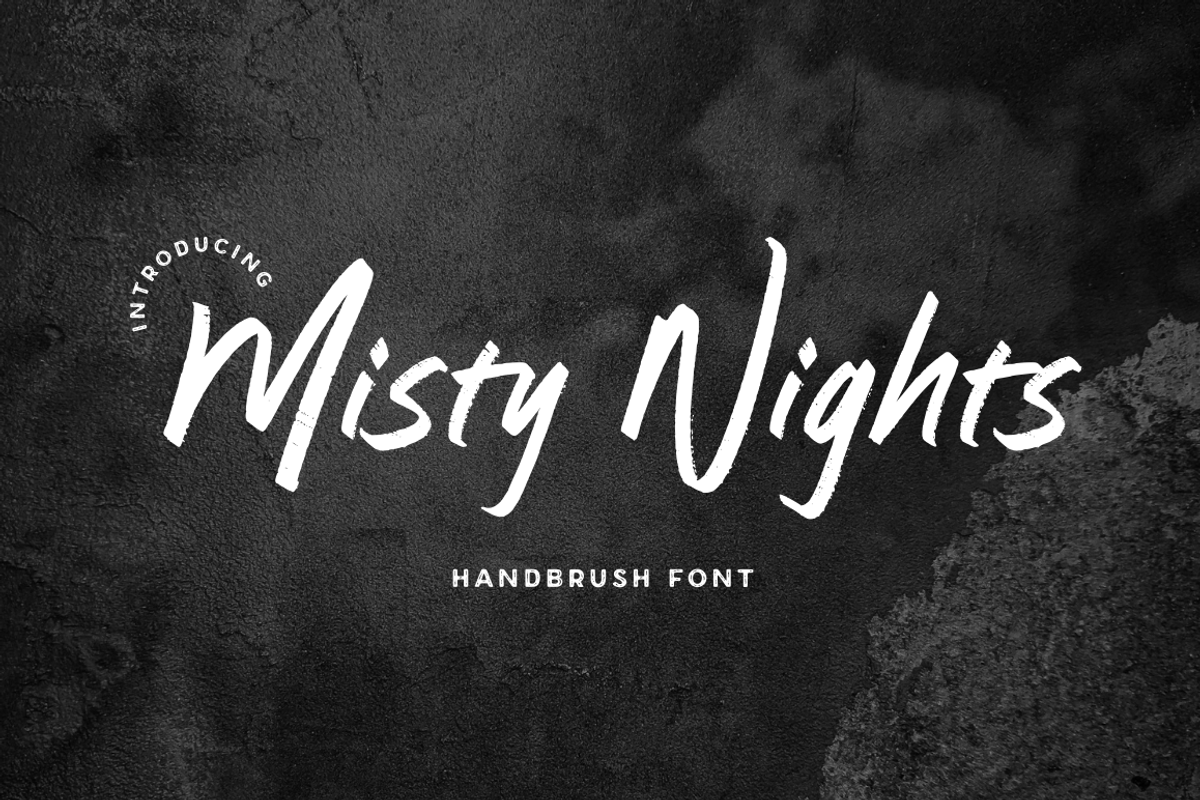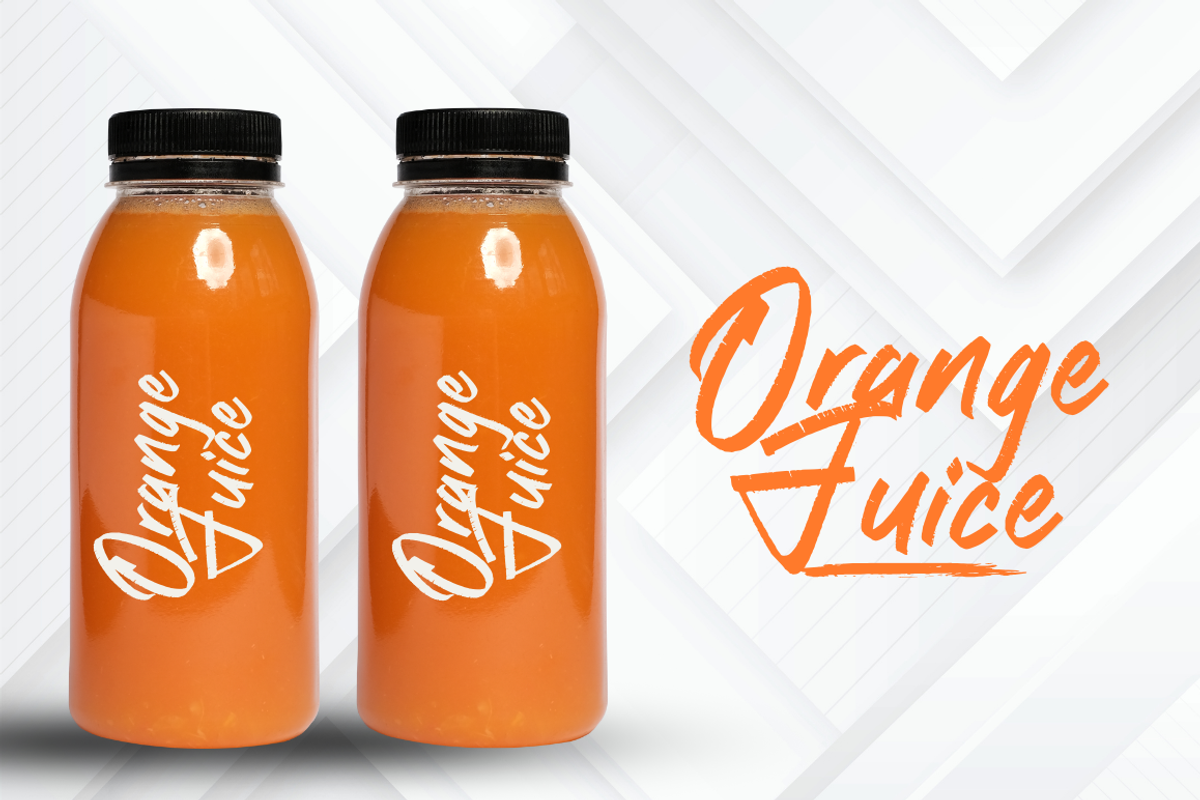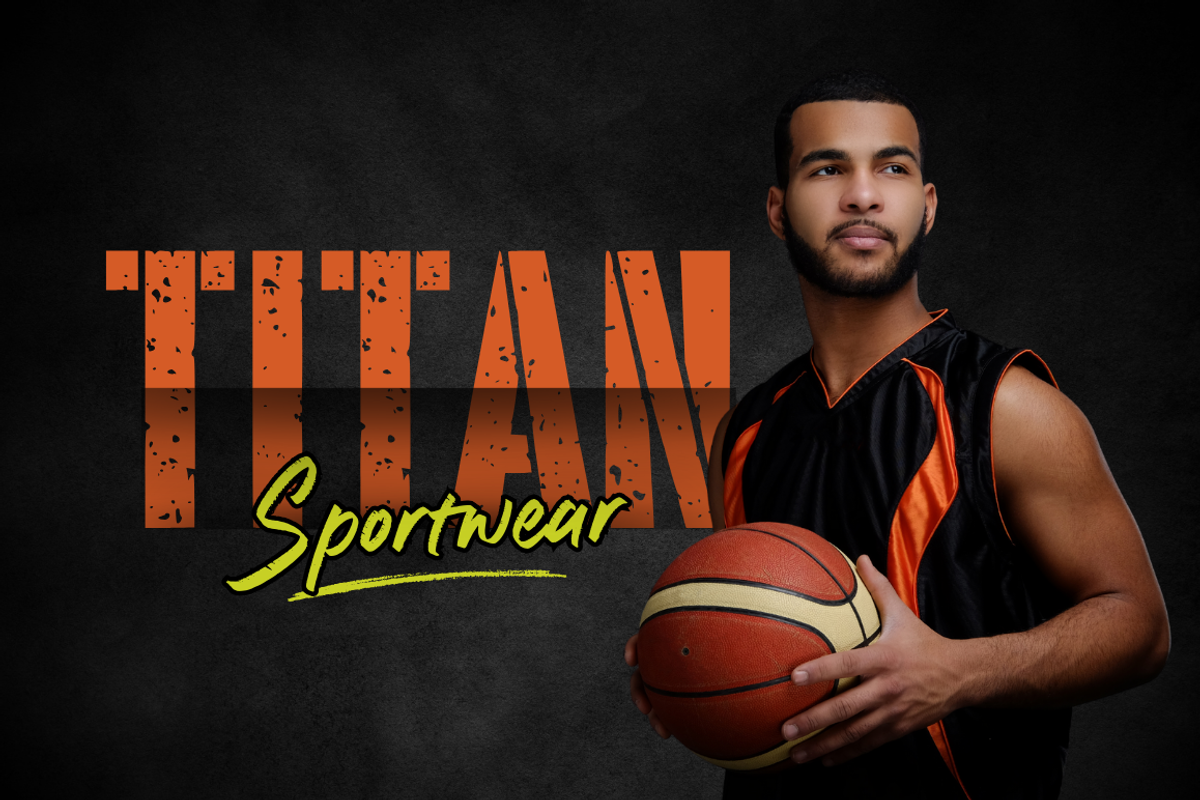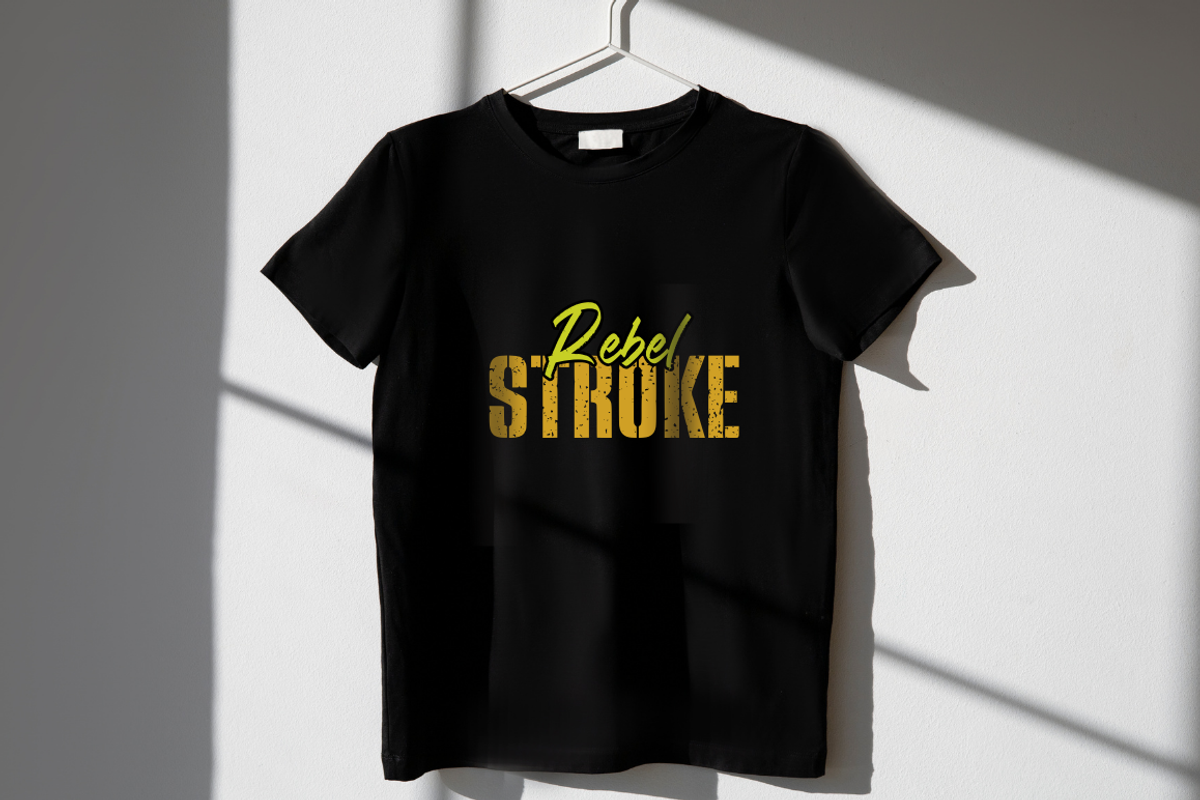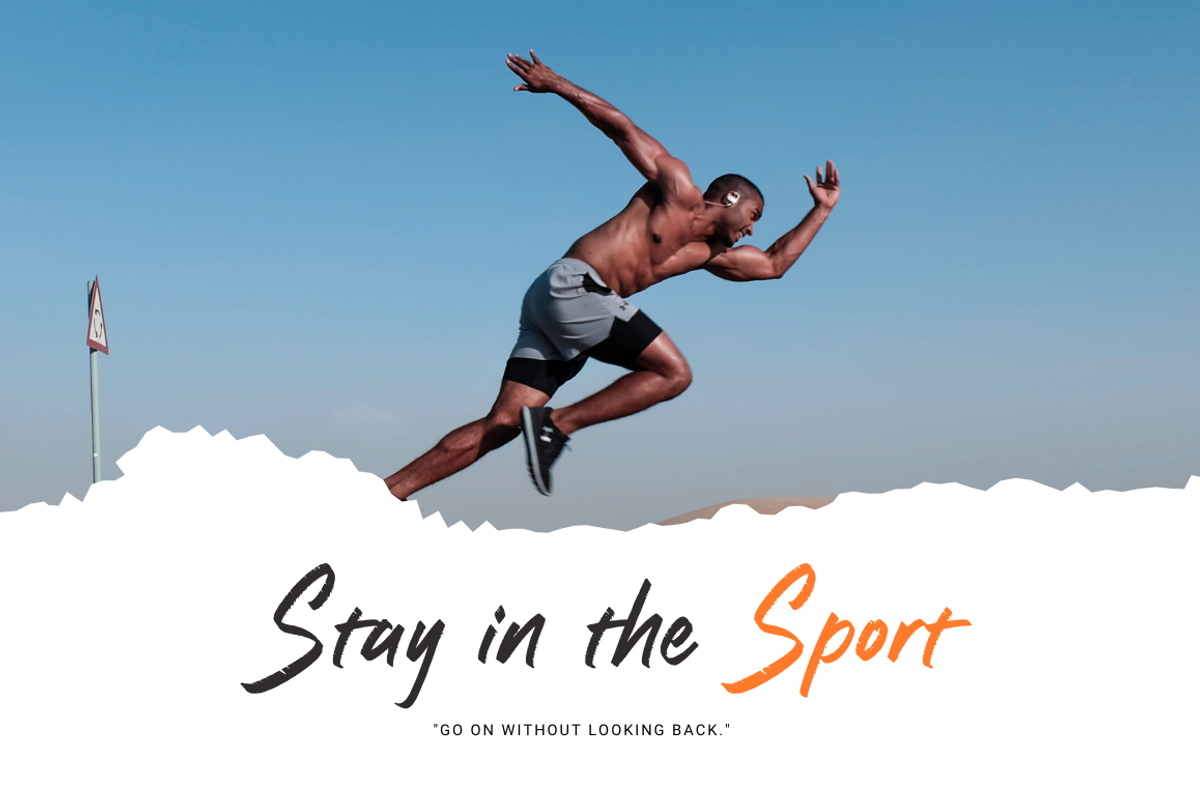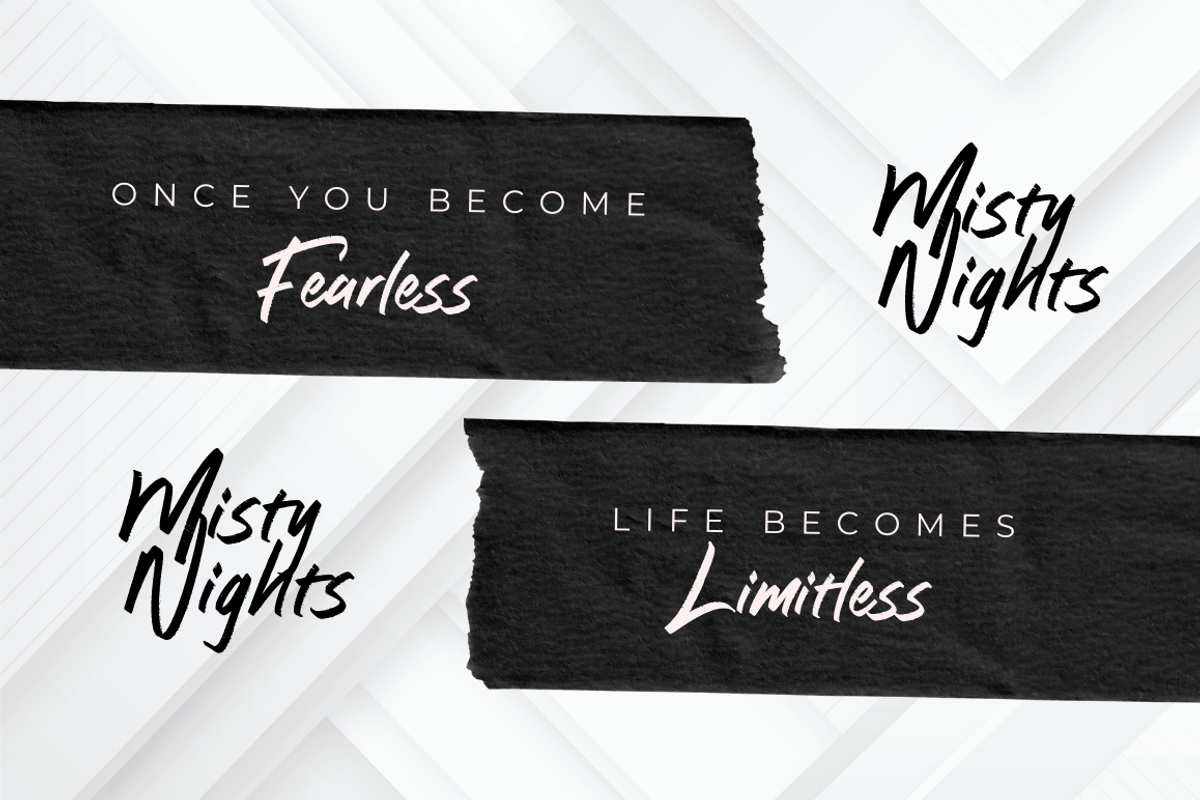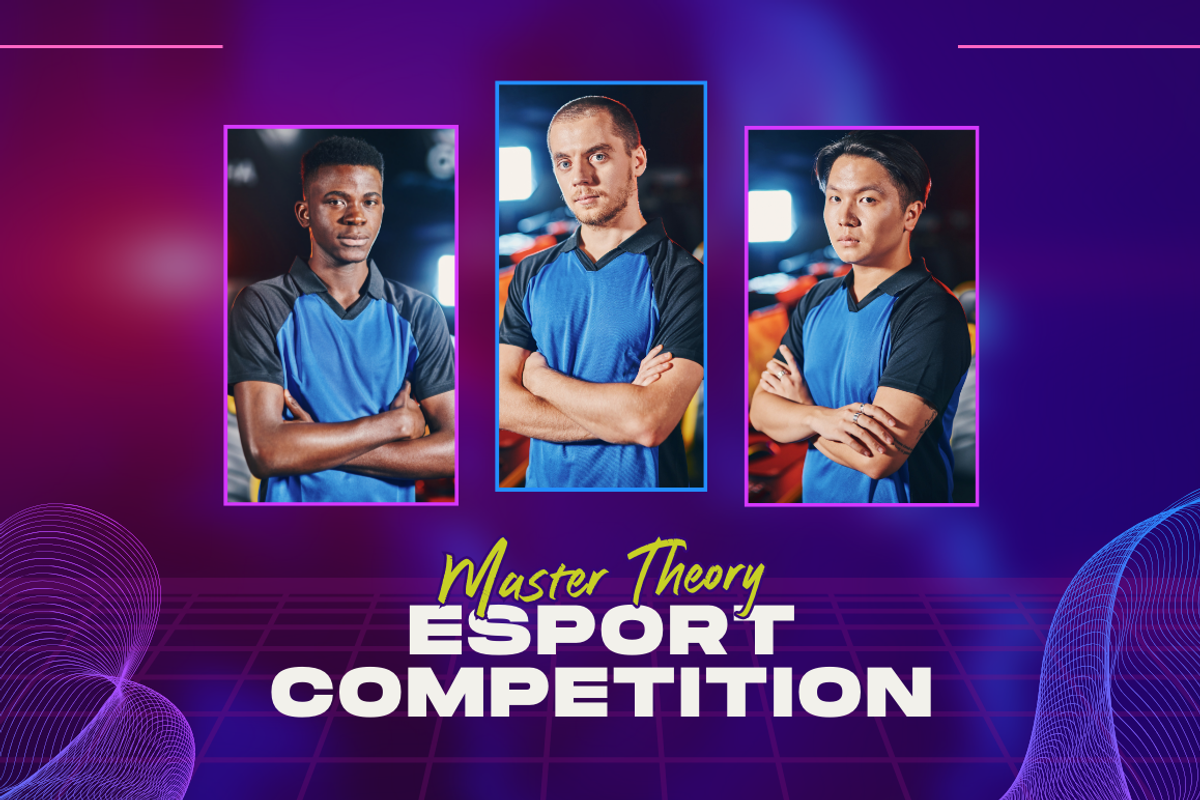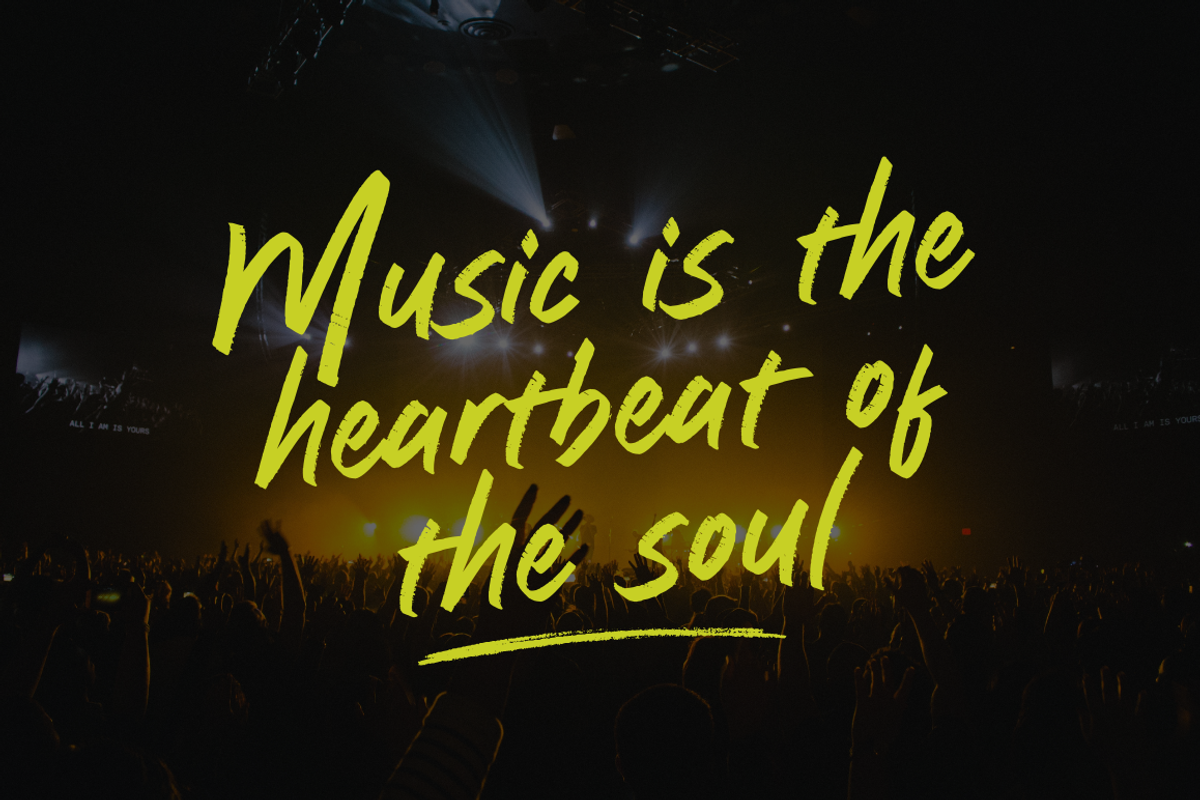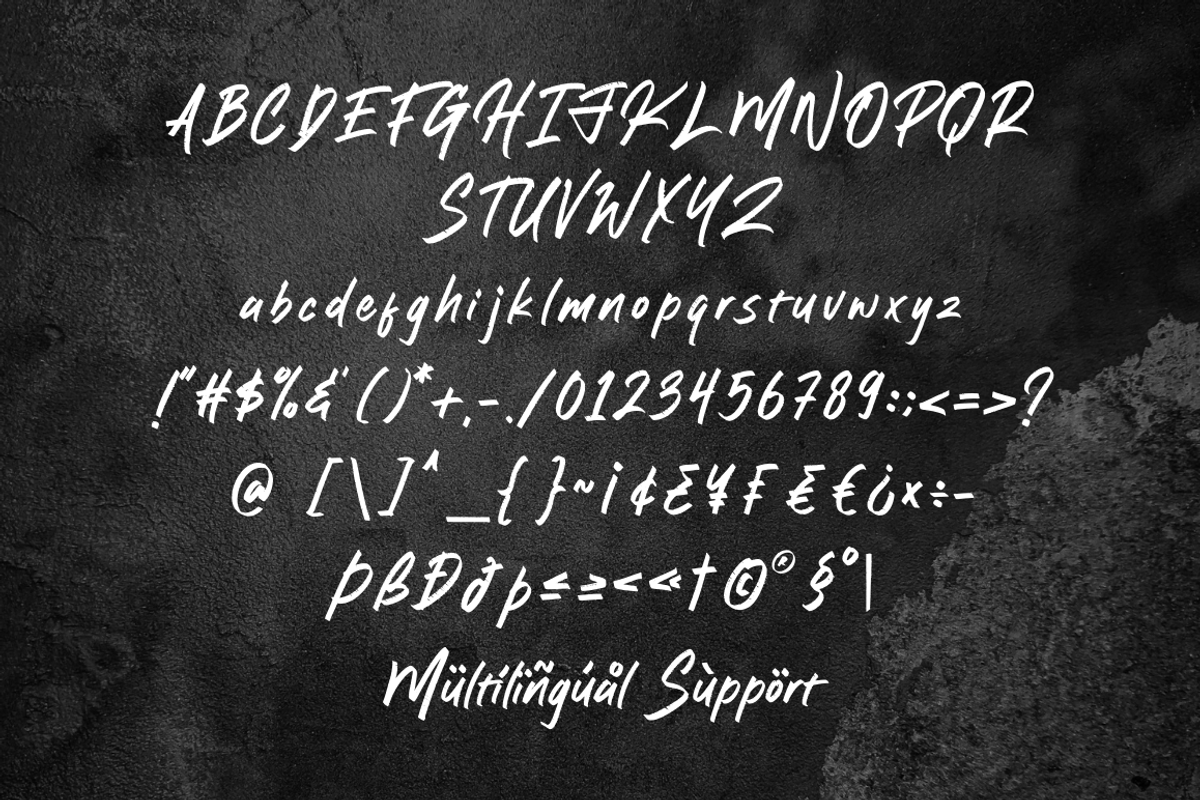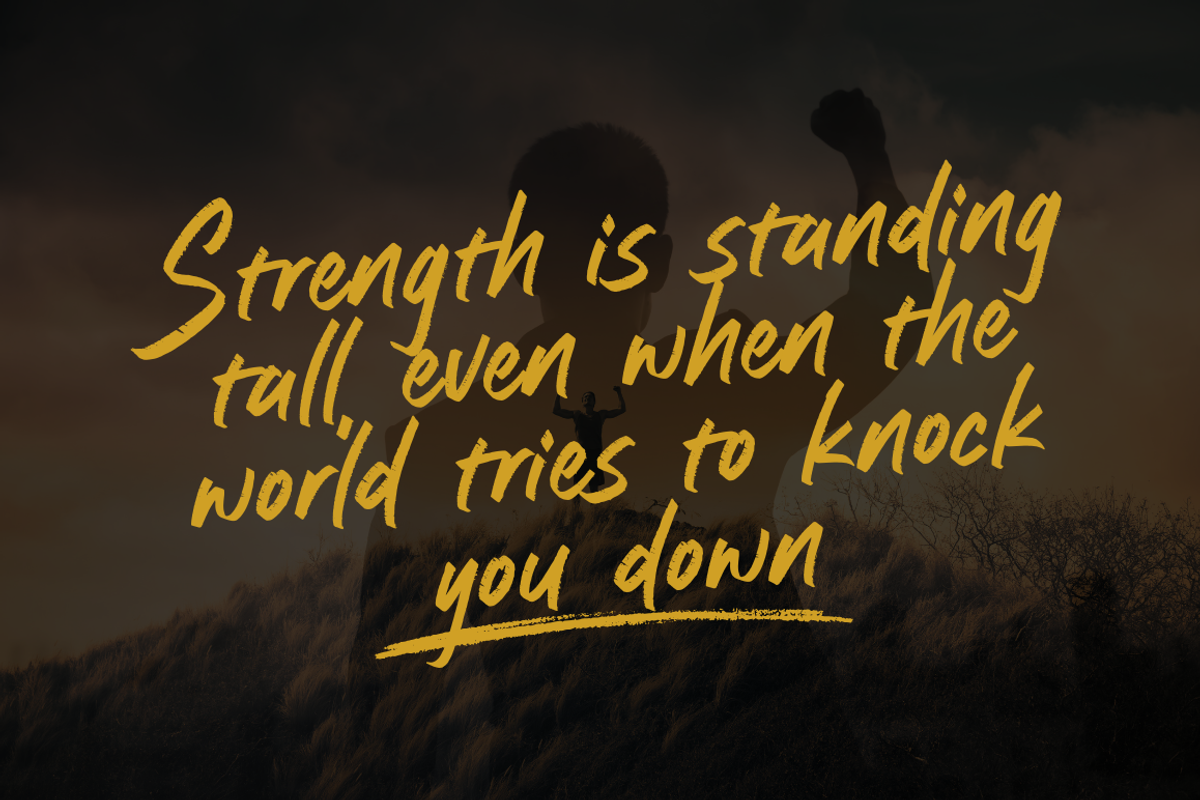
Misty Nights - Brush Font
Misty Nights is a stunning handbrush font that exudes a raw and artistic vibe. With its bold strokes and natural flow, this font is perfect for branding, posters, social media, or any project that needs a creative, handcrafted touch. Bring your designs to life with Misty Nights!